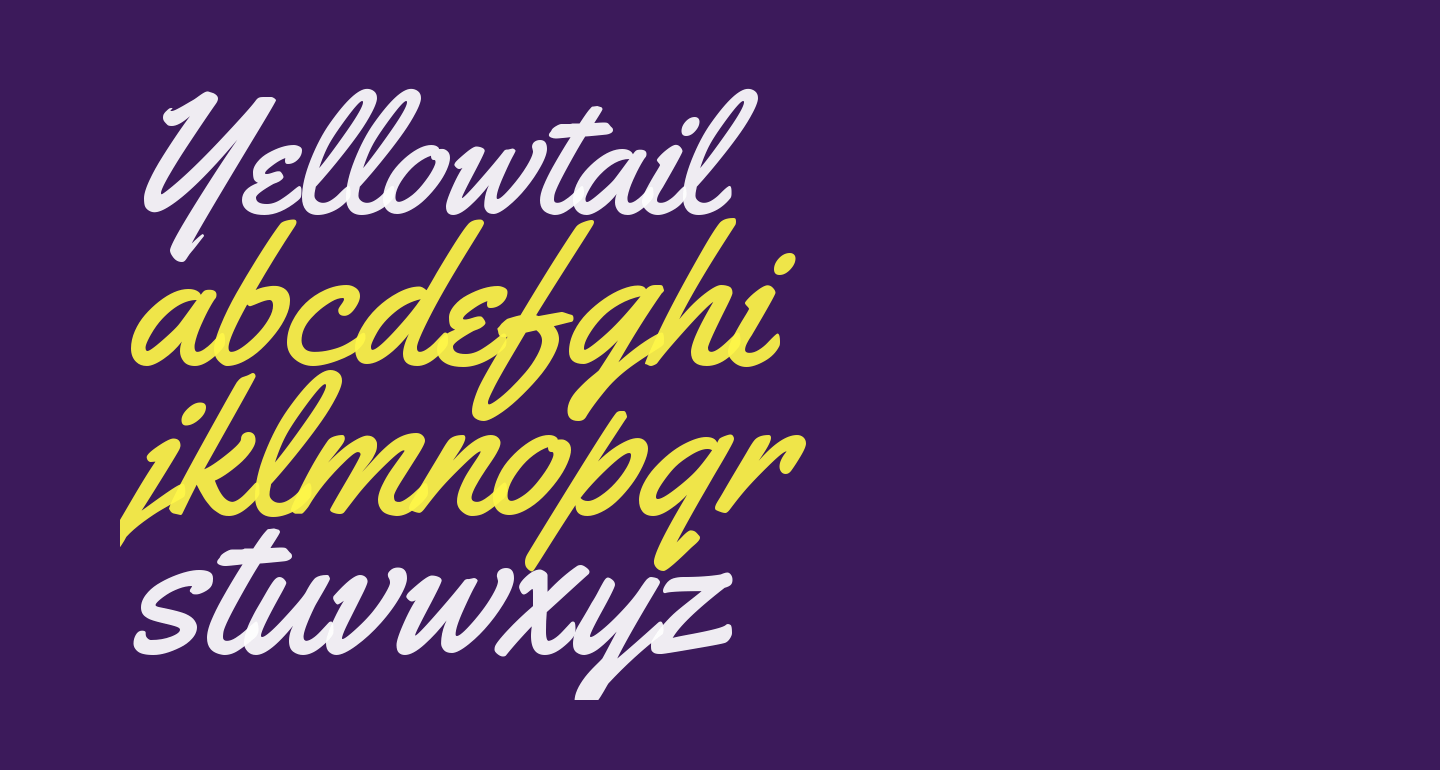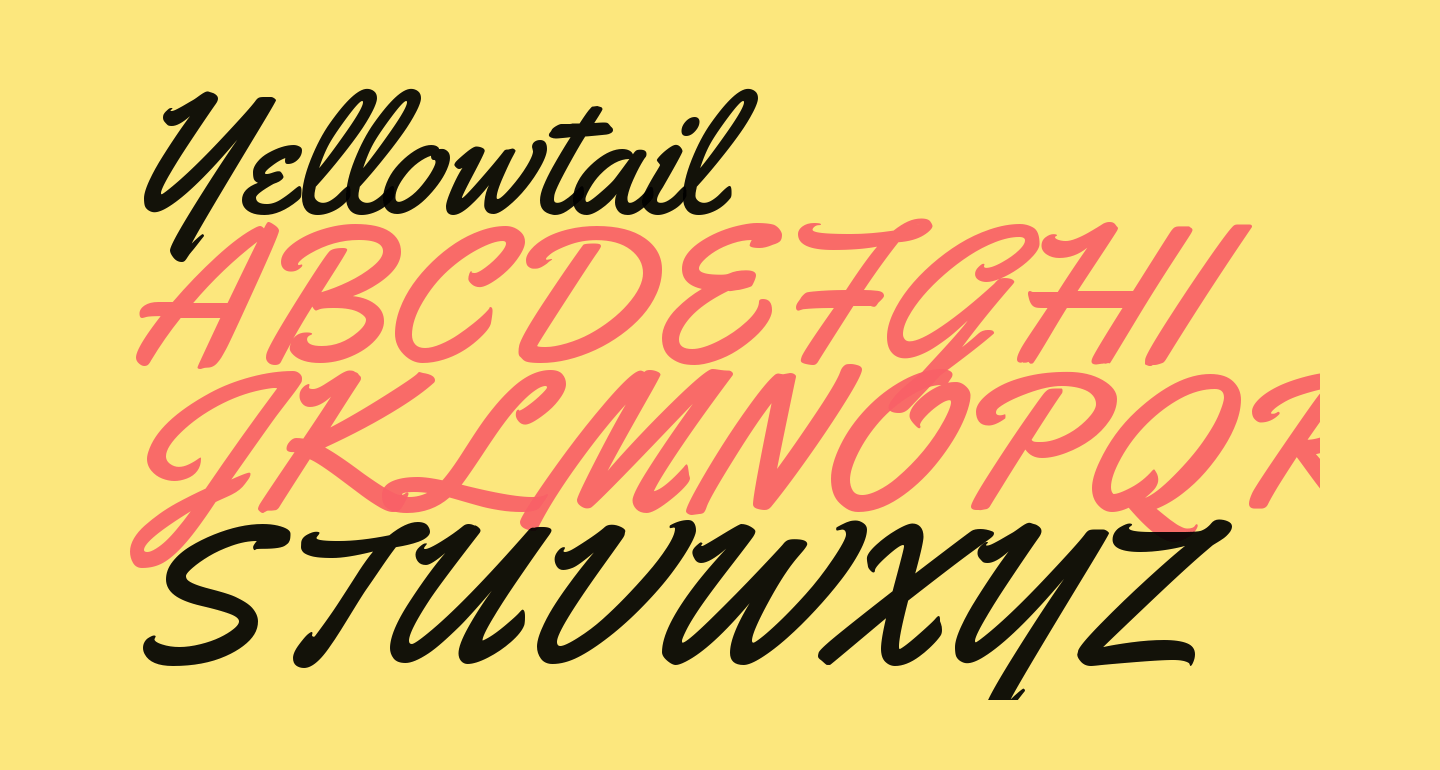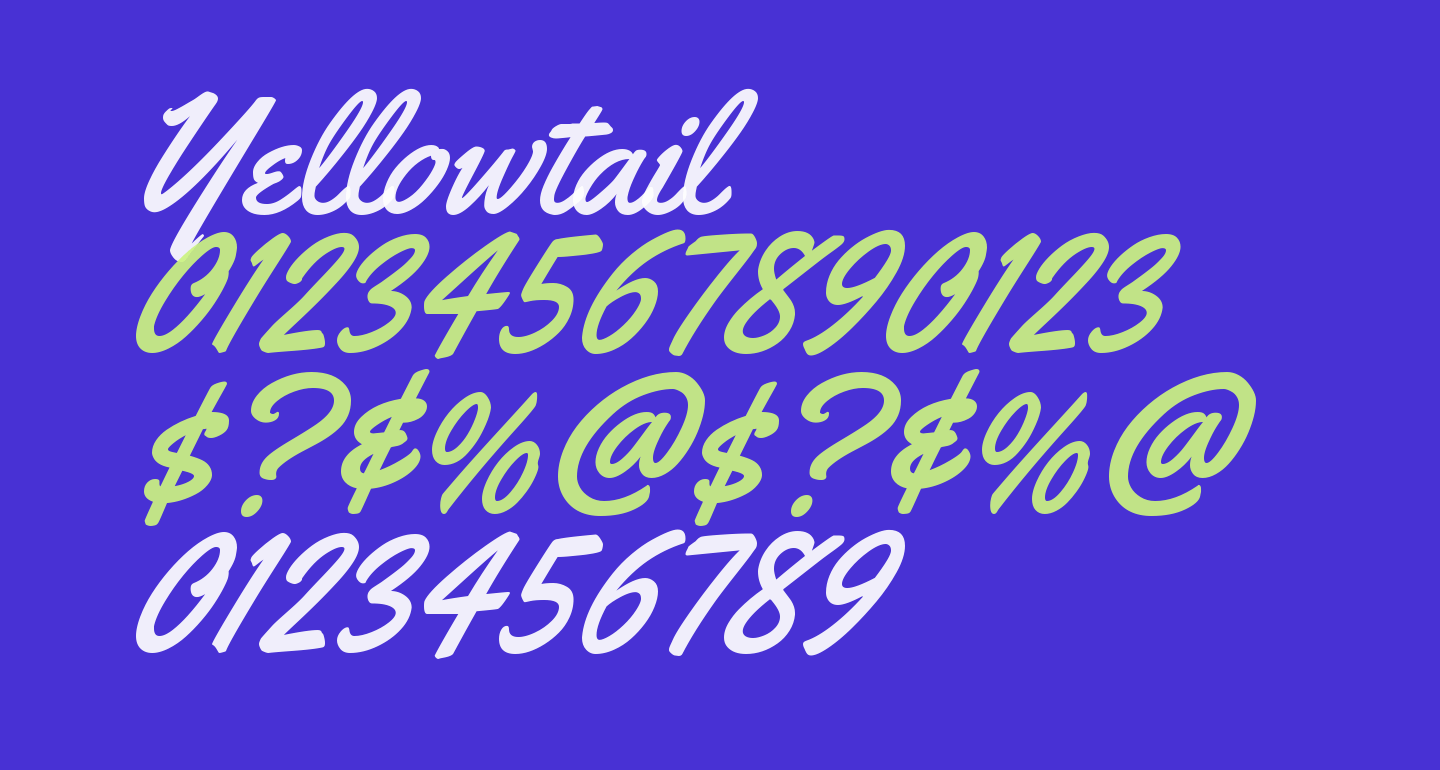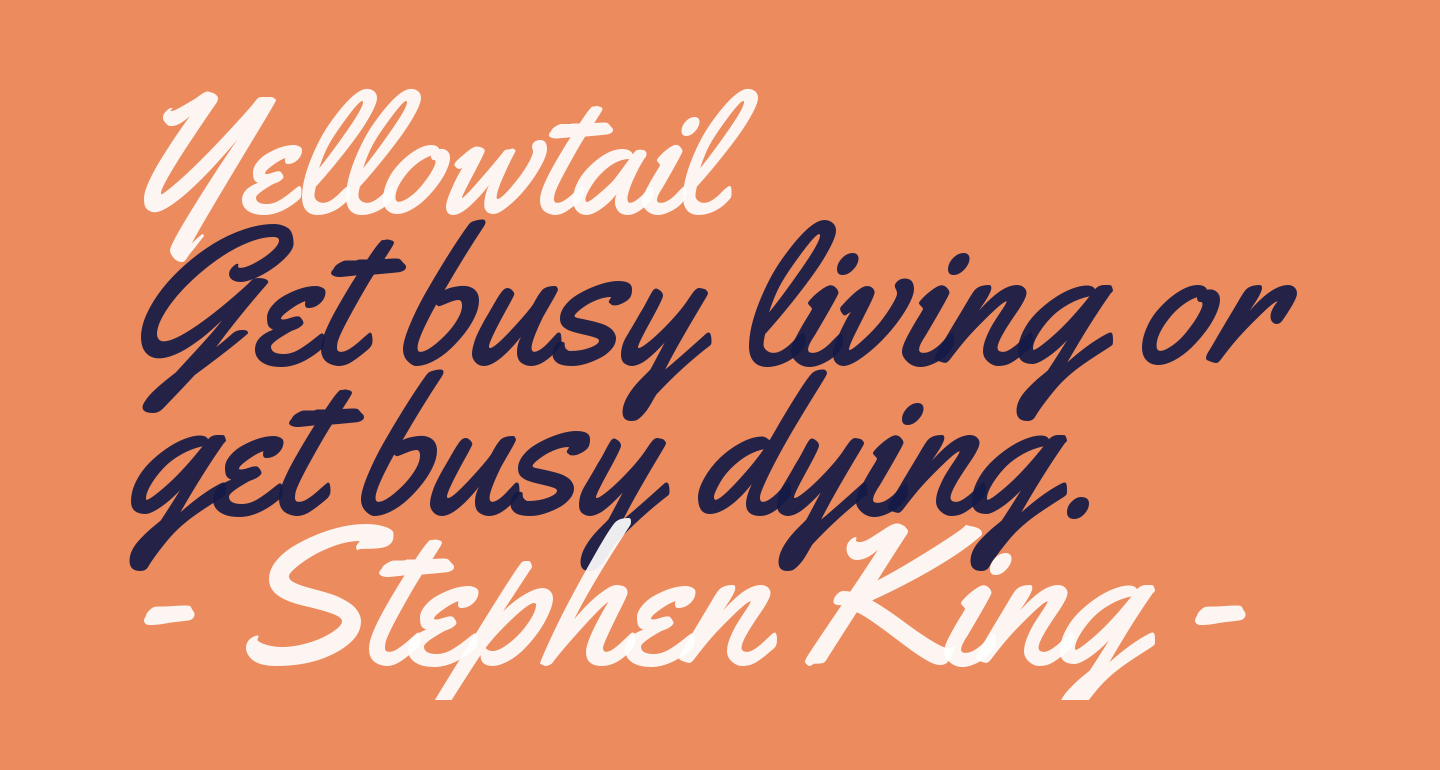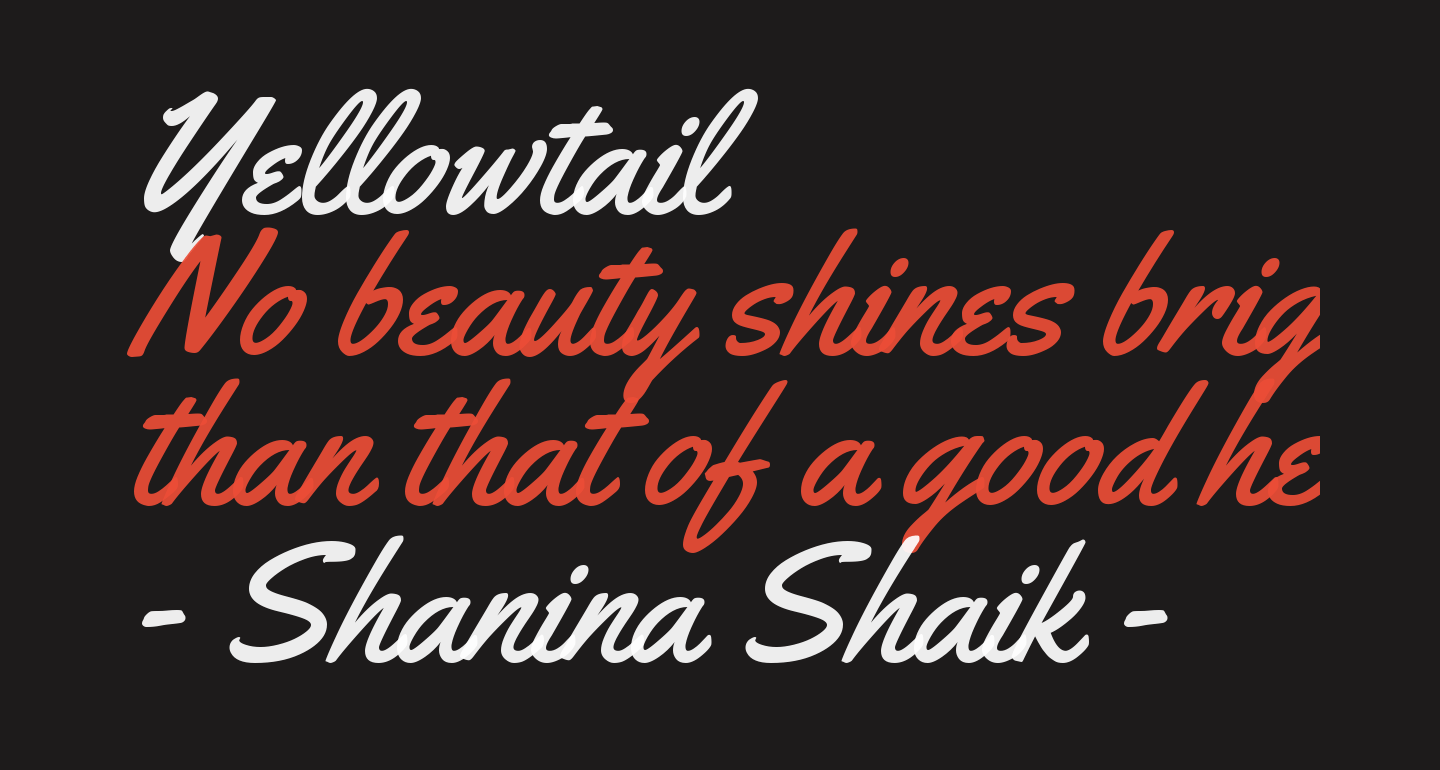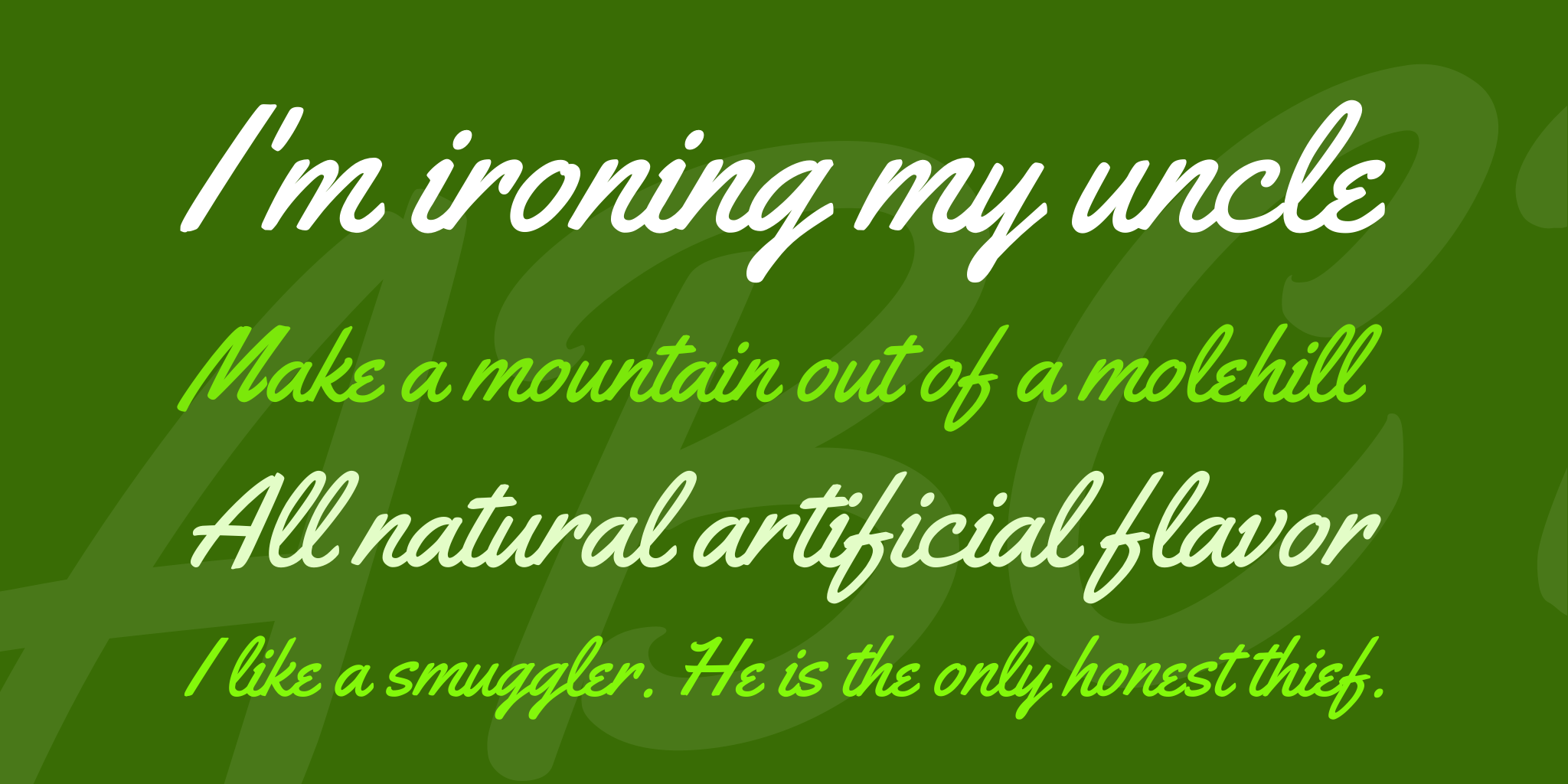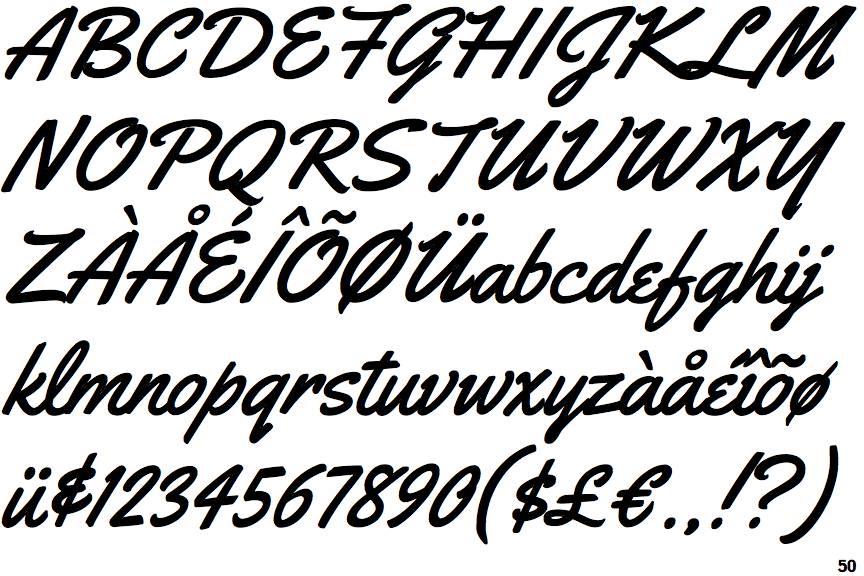
Yellowtail font viewed 1515 times and downloaded 297 times. Yellowtail calligraphy brush font license: Yellowtail is an old school flavored flat brush script typeface of medium weight.
Yellowtail Is An Old School Flavored Flat Brush Script Typeface Of Medium Weight.
Can i use wild words font for my logo design? Yellowtail nods to classic 1930’s typestyles like gillies gothic & kaufmann, yet has the loose visual cadence of sign painter scripts. Yellowtail nods to classic 1930’s typestyles like gillies gothic & kaufmann, yet has the loose visual cadence of sign painter scripts.